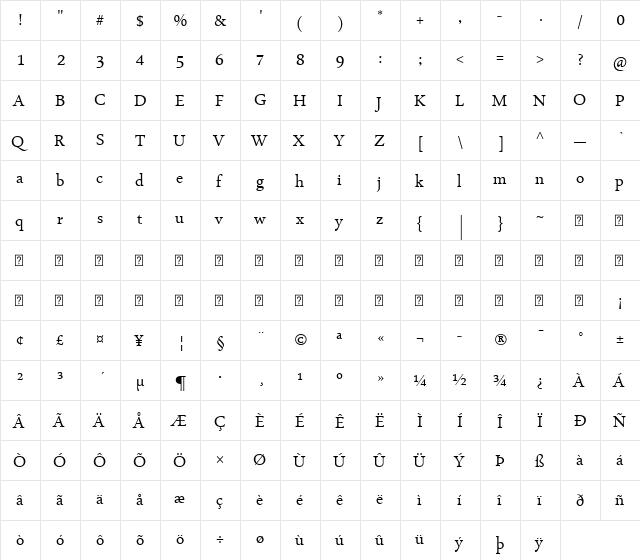
Microsoft Uighur Regular
| Foundry | Microsoft |
| Designer | Mamoun Sakkal |
Design Context for Microsoft Uighur Typeface
Microsoft Uighur takes a measured approach to typography — its balanced proportions and neutral character make it a reliable workhorse for both digital and print work.